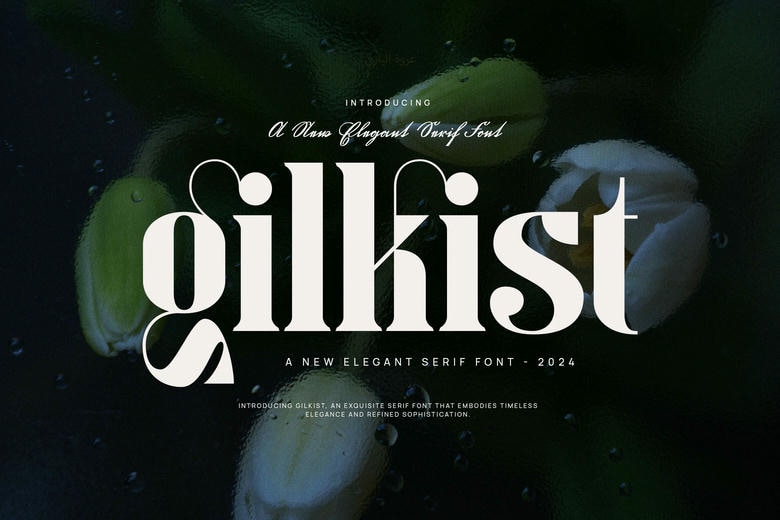
Gilkist Font
Gilkist is a nice and classic serif font. It is the most appropriate option in developing eye catching logos, branding and quotes. All the letters have some unique and beautiful accent to it and this will make your design come to life!
Gilkist Serif Font